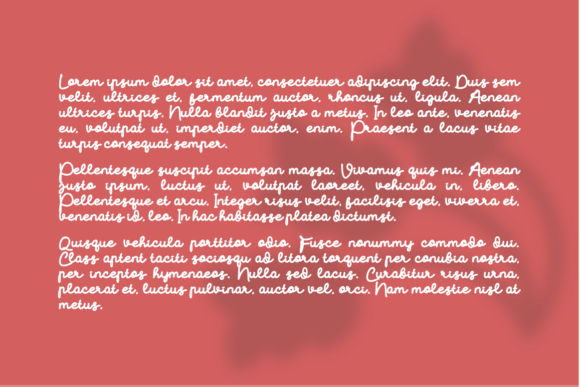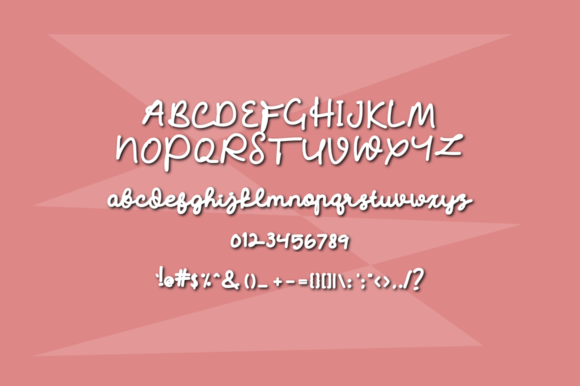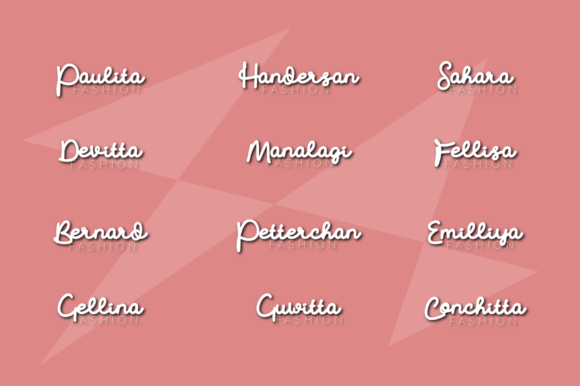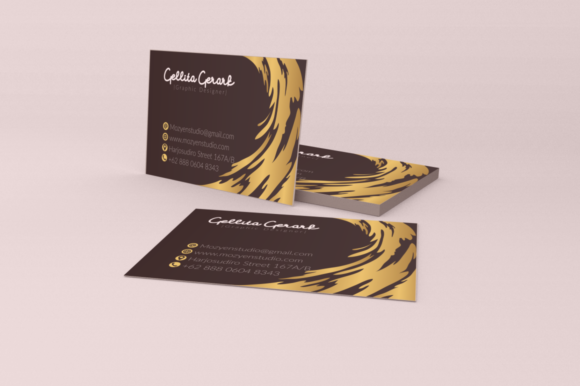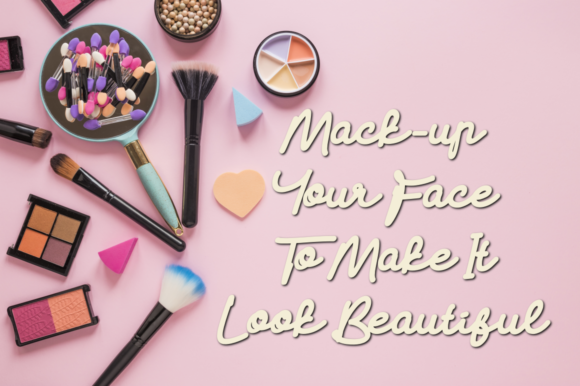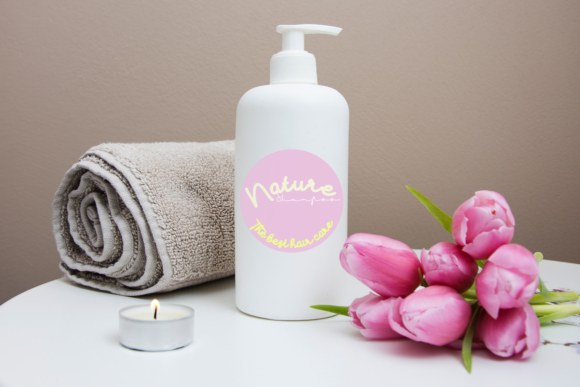
Discover the Magic of Batullistiwa Font
You know that feeling when you stumble upon a font that just clicks with your design style? It’s like finding the perfect match for your creative vision. For many designers, that moment comes with the discovery of the Batullistiwa Font. This sweet and charming script is full of energy, making it the perfect addition to any design project.
Designed to inspire, Batullistiwa Font is all about modern simplicity. Its unique blend of elegance and playfulness makes it a valuable asset for designers looking to add a touch of personality to their work. Whether you’re crafting a branding campaign or creating a social media graphic, the Batullistiwa Font is sure to bring a smile to your design.
Designer Review: Batullistiwa Font
Overall, I’m quite impressed with the Batullistiwa font. It’s a beautiful, elegant script font that can add a touch of sophistication to any design project. ✨ The flowing lines and connected letters give it a handwritten feel, making it perfect for invitations, quotes, or other creative applications.
- Unique and elegant design
- Perfect for creative projects, like invitations and quotes
- Easy to read, even in smaller sizes
However, there are a few limitations to consider. ✠ The font can be quite dense, which may make it difficult to use in situations where legibility is a top priority. Additionally, the font may not be suitable for large blocks of text, as it can become overwhelming.
- Dense design can make it hard to read in certain situations
- Not ideal for large blocks of text
Despite these limitations, I think the Batullistiwa font is a great addition to any designer’s toolkit. With a little creativity and restraint, it can add a beautiful touch to any project. Overall, I’d give it 4 out of 5 stars.
For the best results, use Batullistiwa Font in combination with other fonts that complement its unique style.
Use Batullistiwa Font for headings, titles, and other prominent text elements to add a touch of elegance and sophistication.